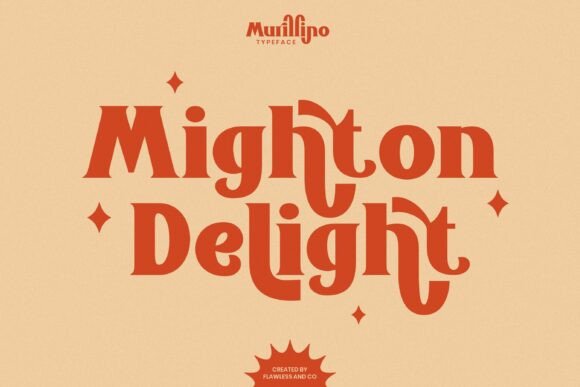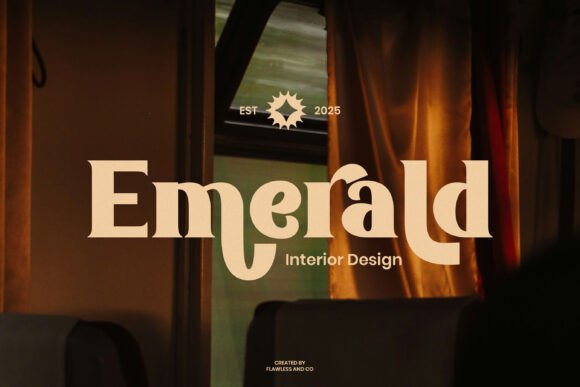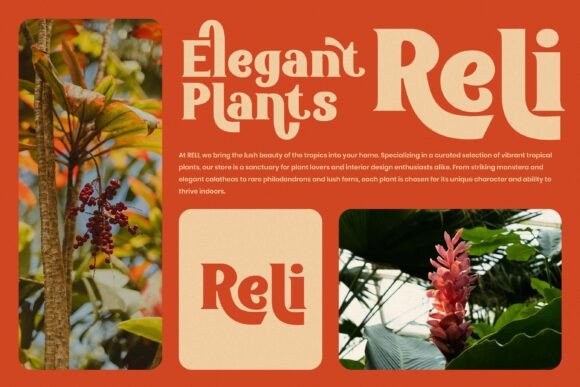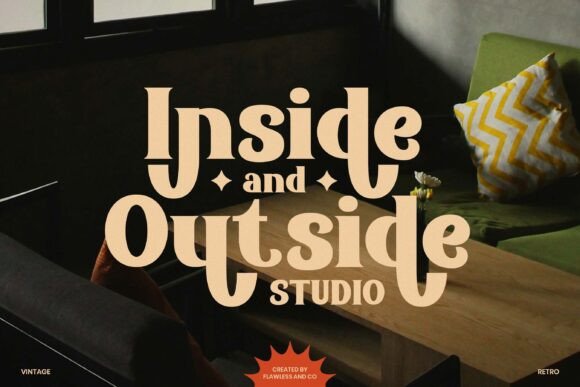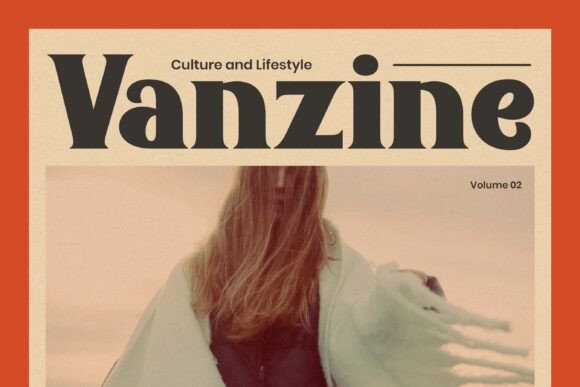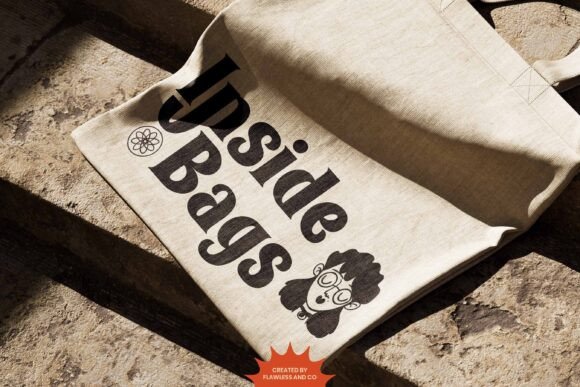
Introduction to Murillino Font
Murillino is a retro serif typeface that blends nostalgic warmth with classic sophistication.
Its refined serifs, gentle curves, and thoughtful letterforms evoke a sense of vintage eleganceโ€”perfect for designers looking to bring personality and character into their work Designed to shine in applications like branding, editorial design, packaging, and signage, Murillino captures the spirit of the past while remaining versatile for modern use.